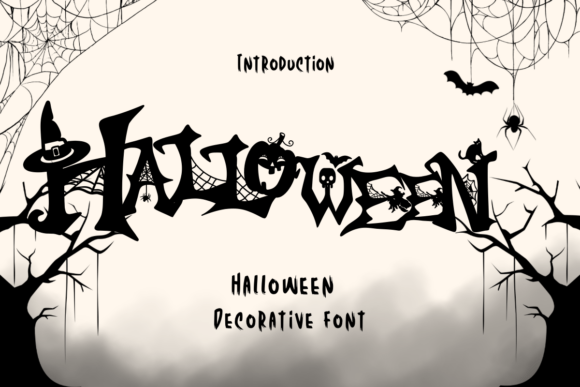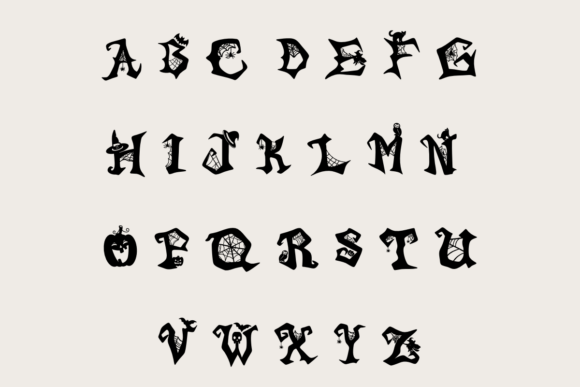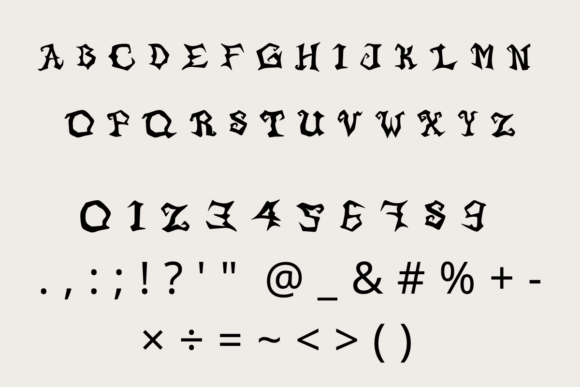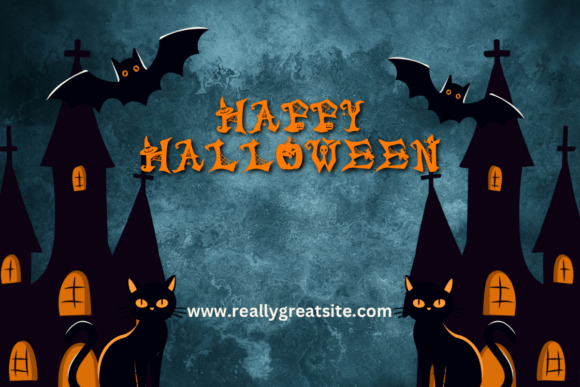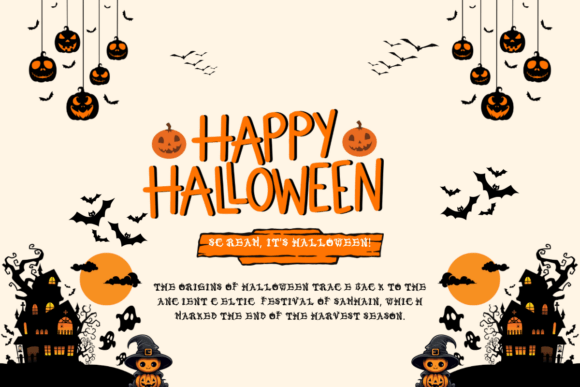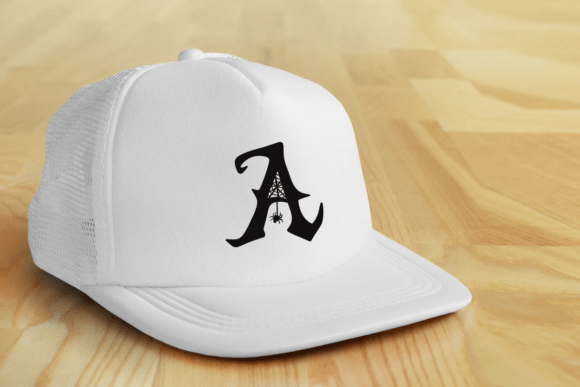
Halloween Font
Halloween is a spine-chilling decorative font bursting with festive fright! Each letter is creatively integrated with eerie Halloween-themed illustrations—witch hats, spider webs, bats, skulls, and more—making it the perfect typeface for spooky invitations, haunted party posters, creepy crafts, or any project that needs a playful yet sinister Halloween twist. Bring your Halloween designs to life with this bold and whimsical fright-fest of a font!